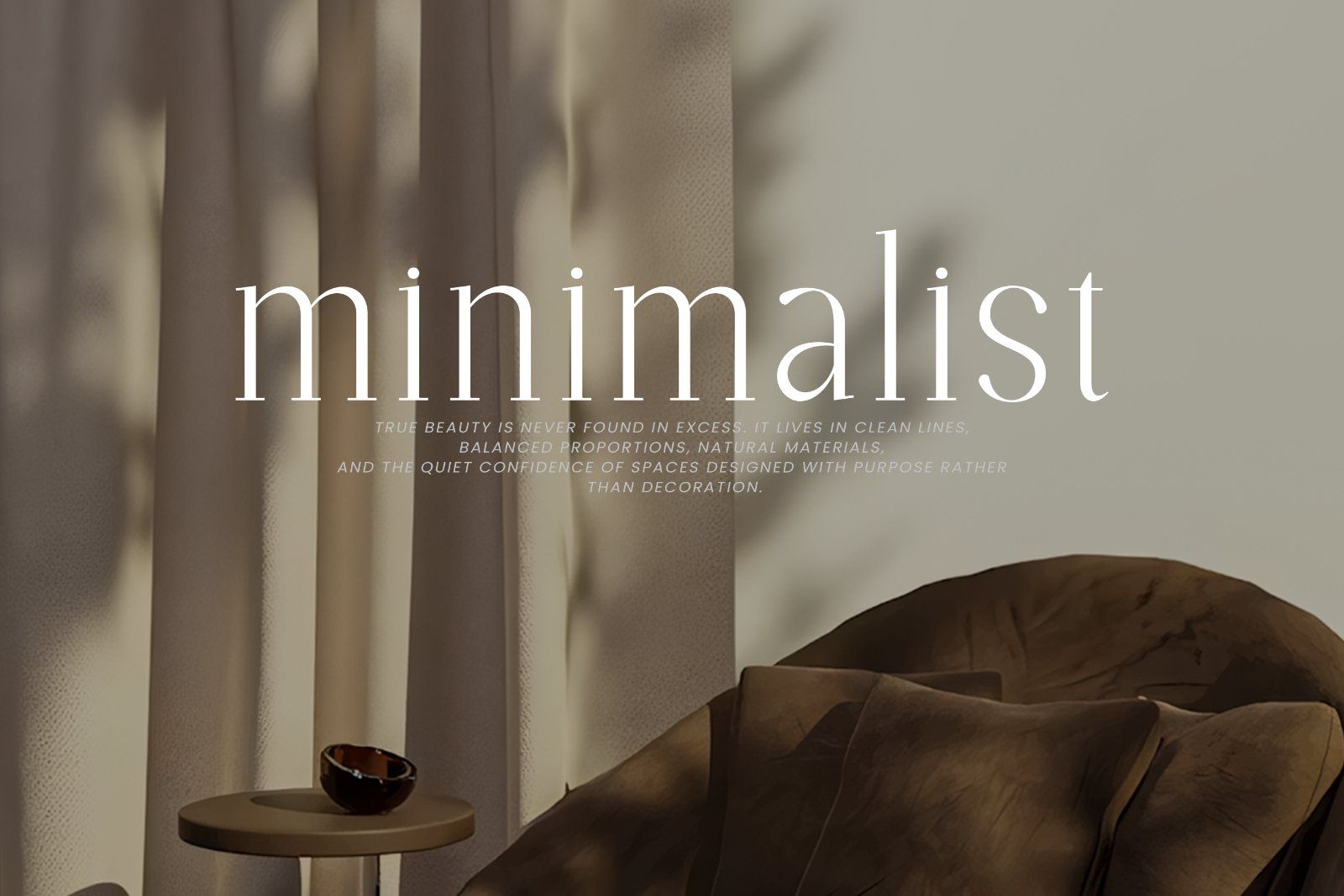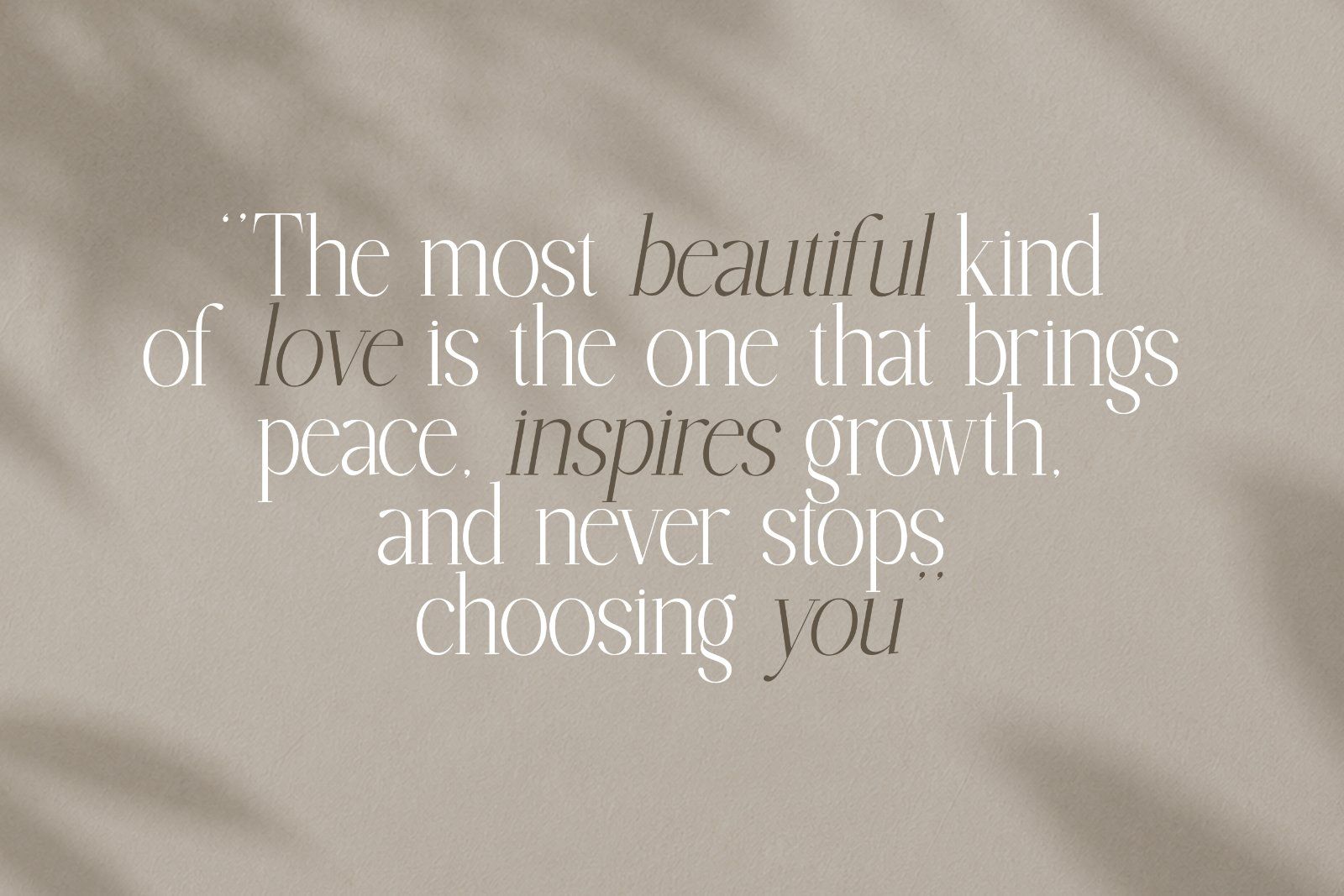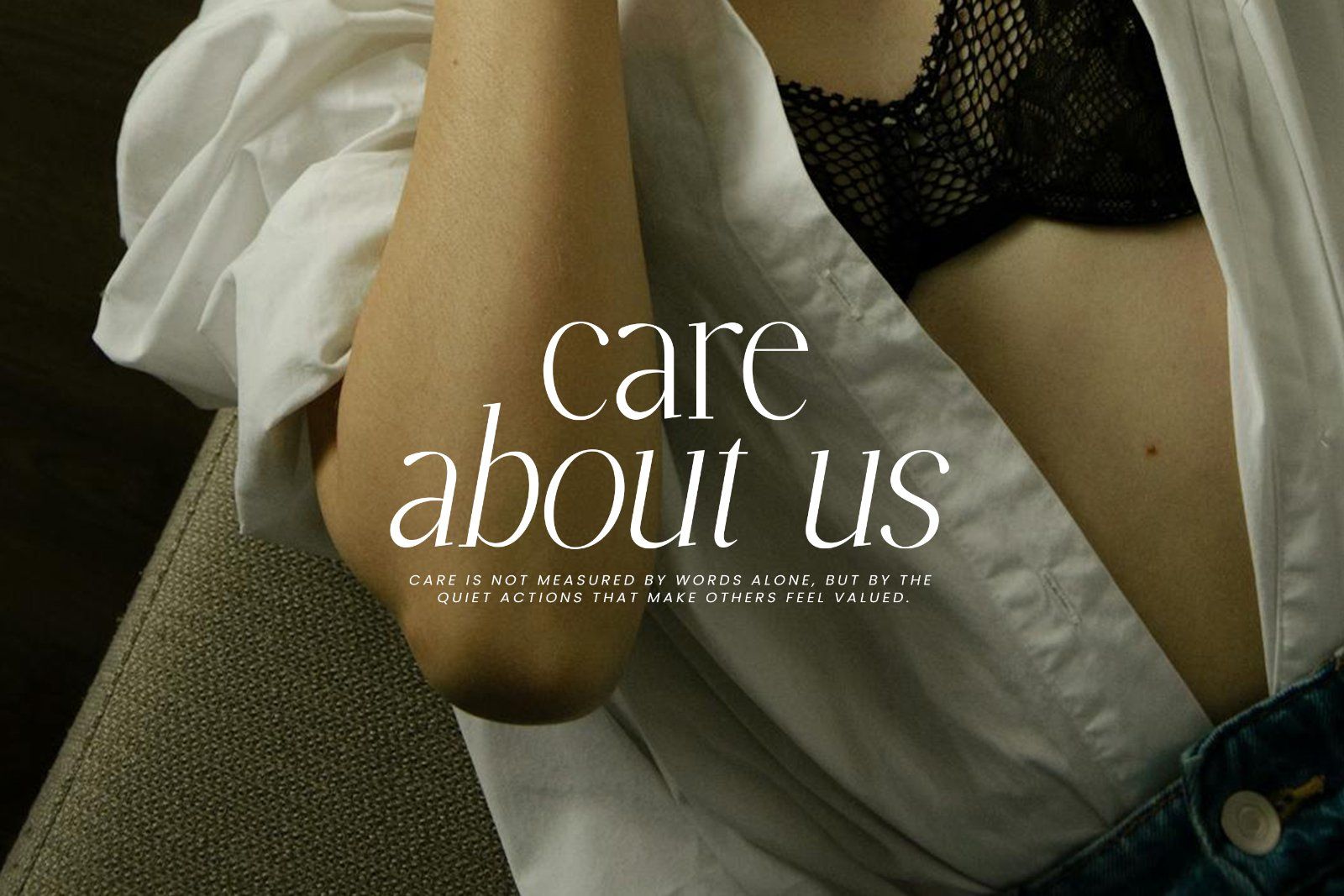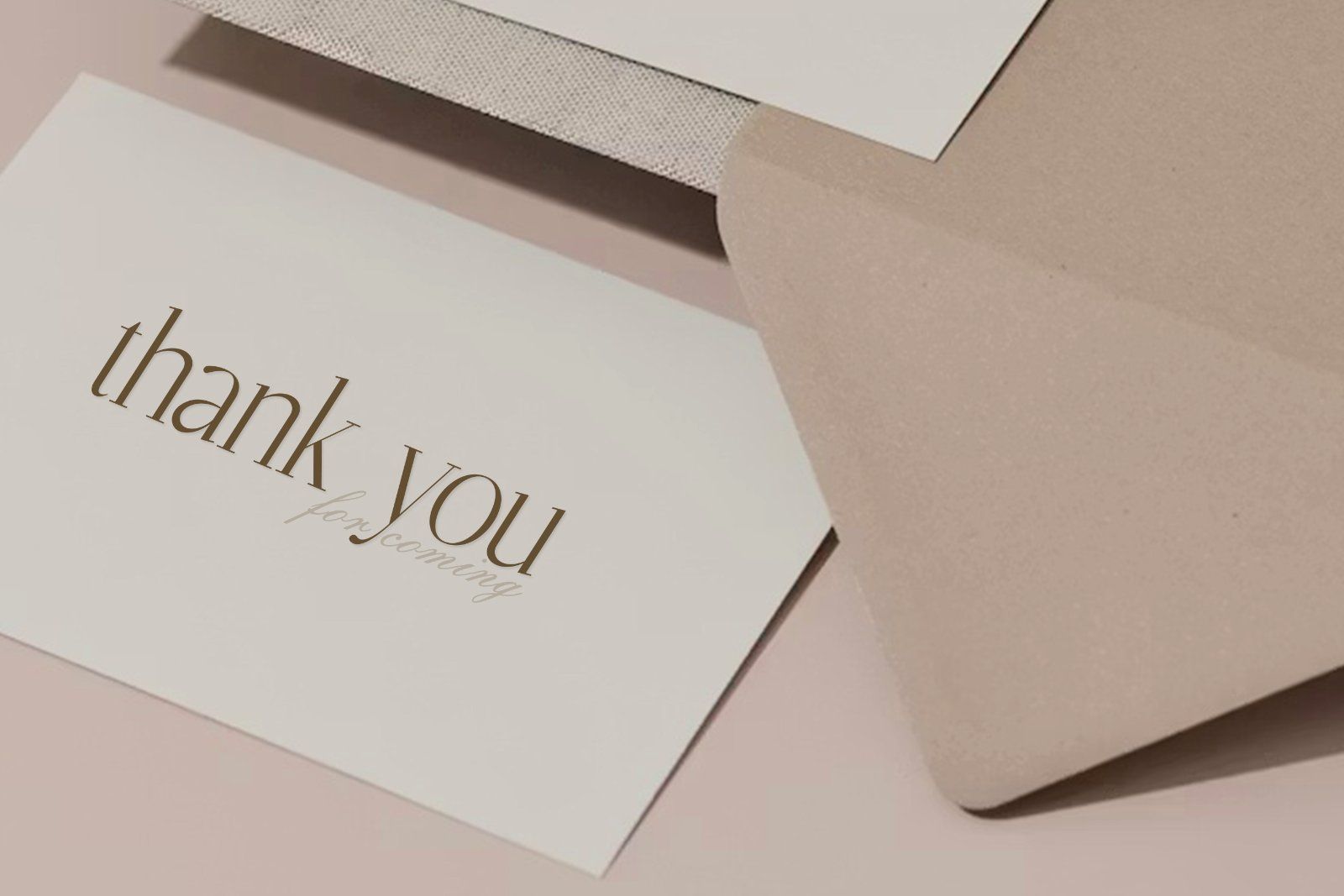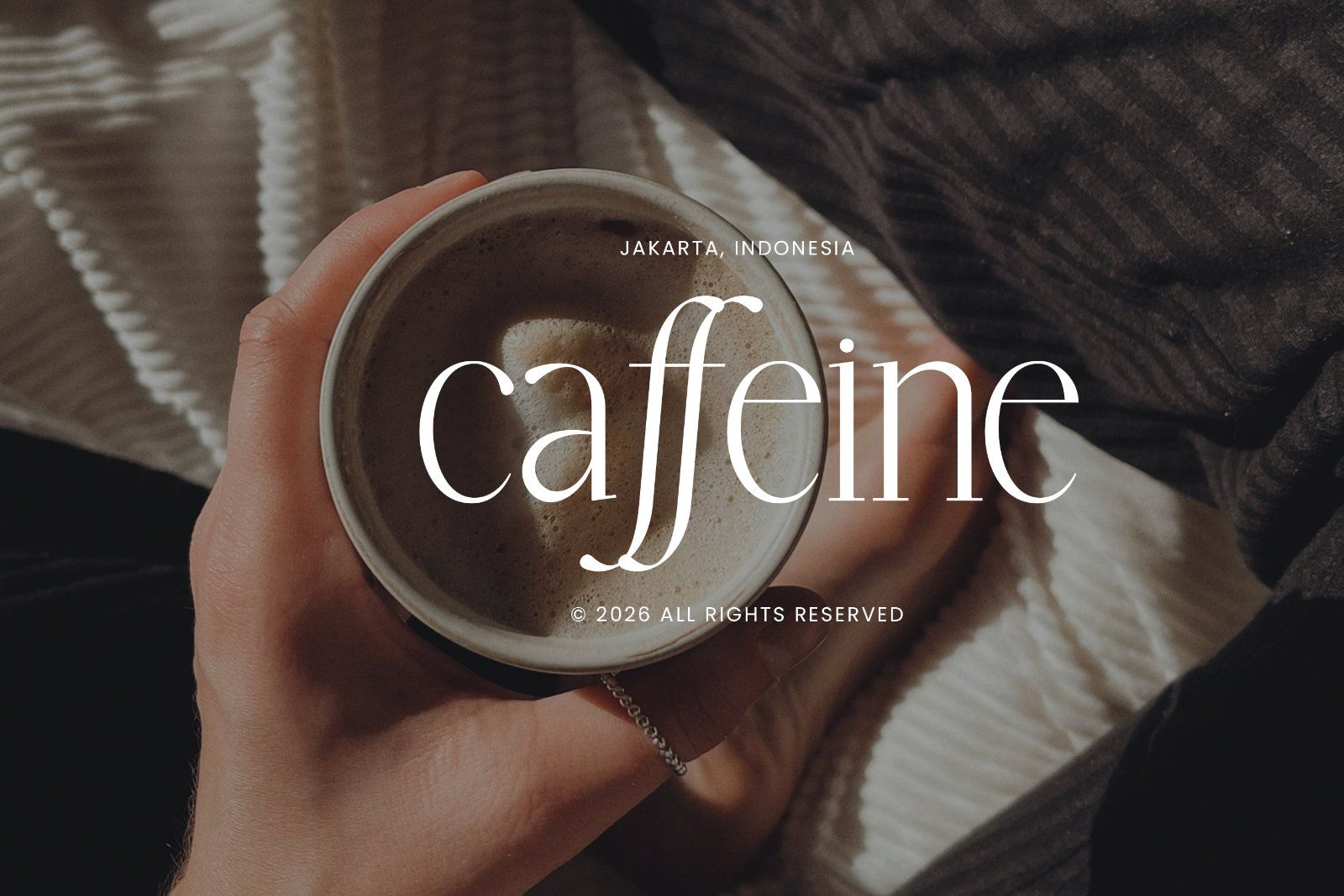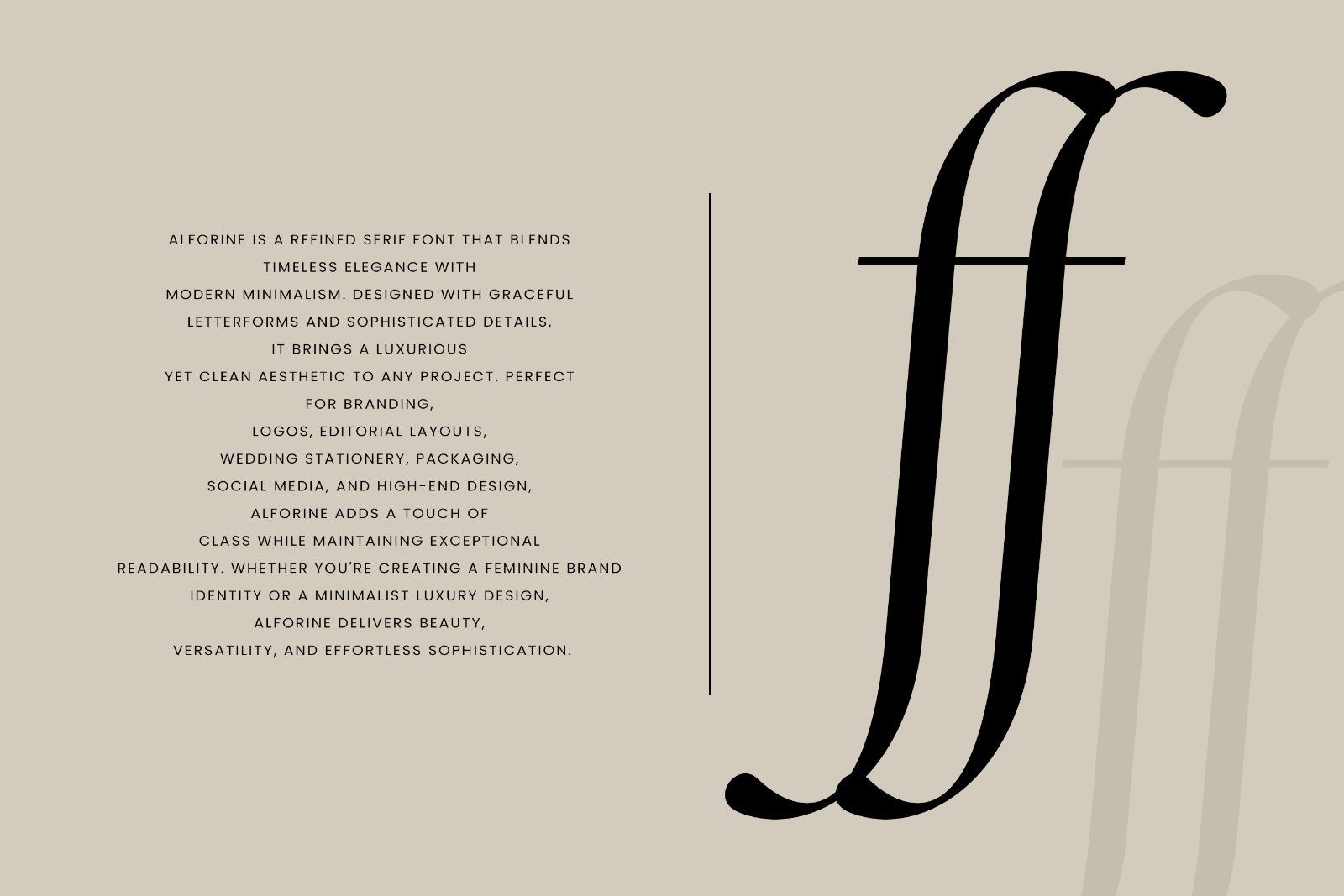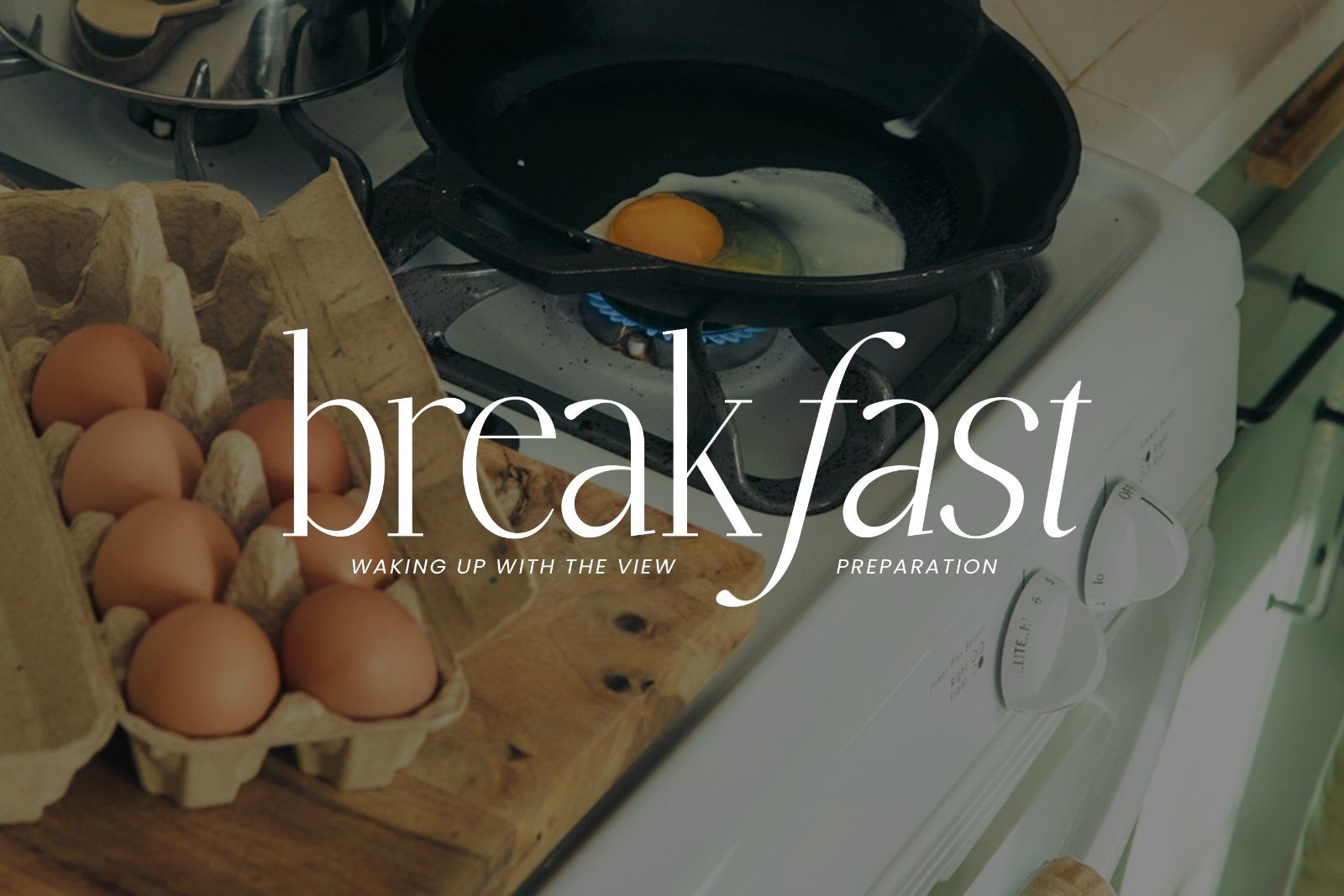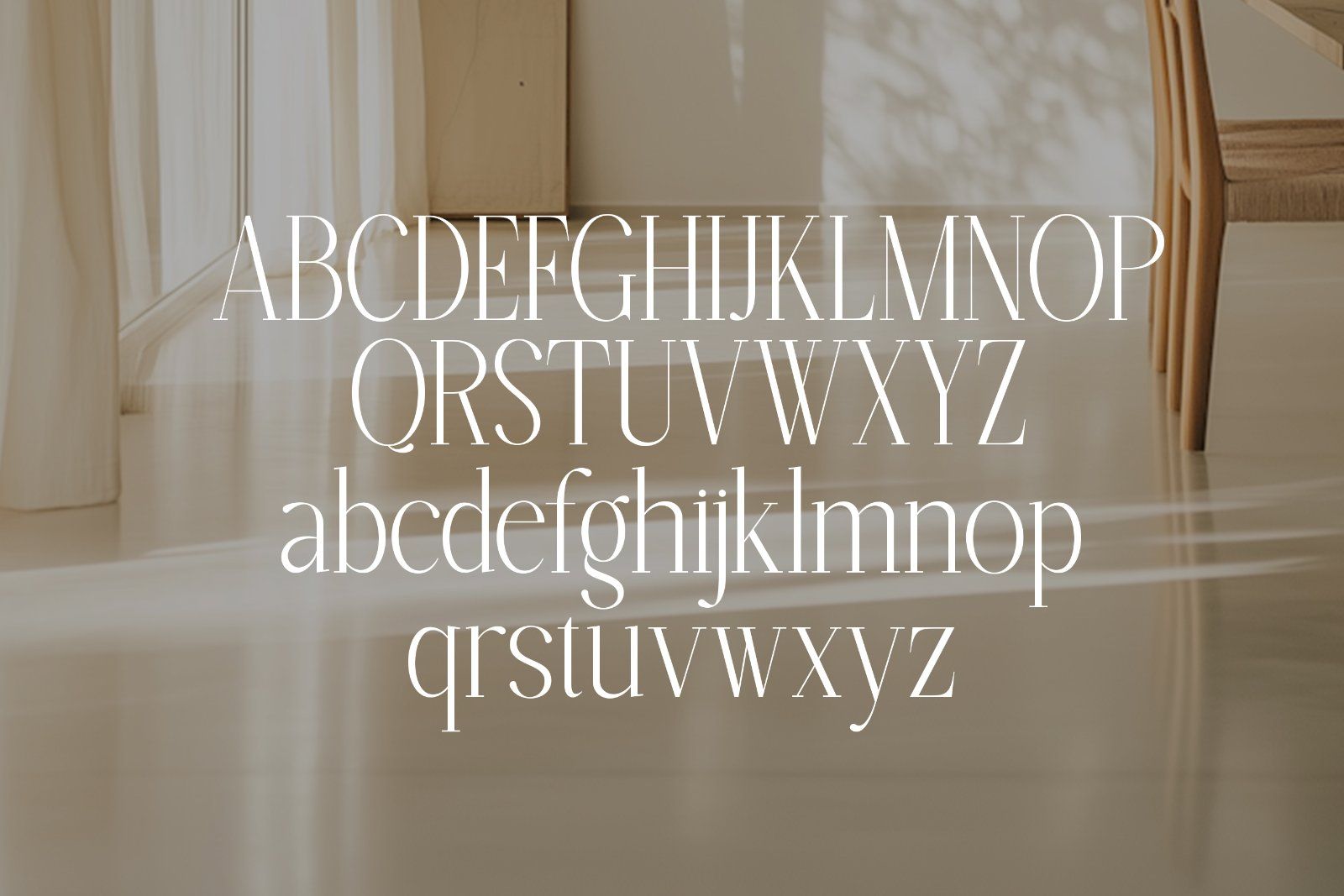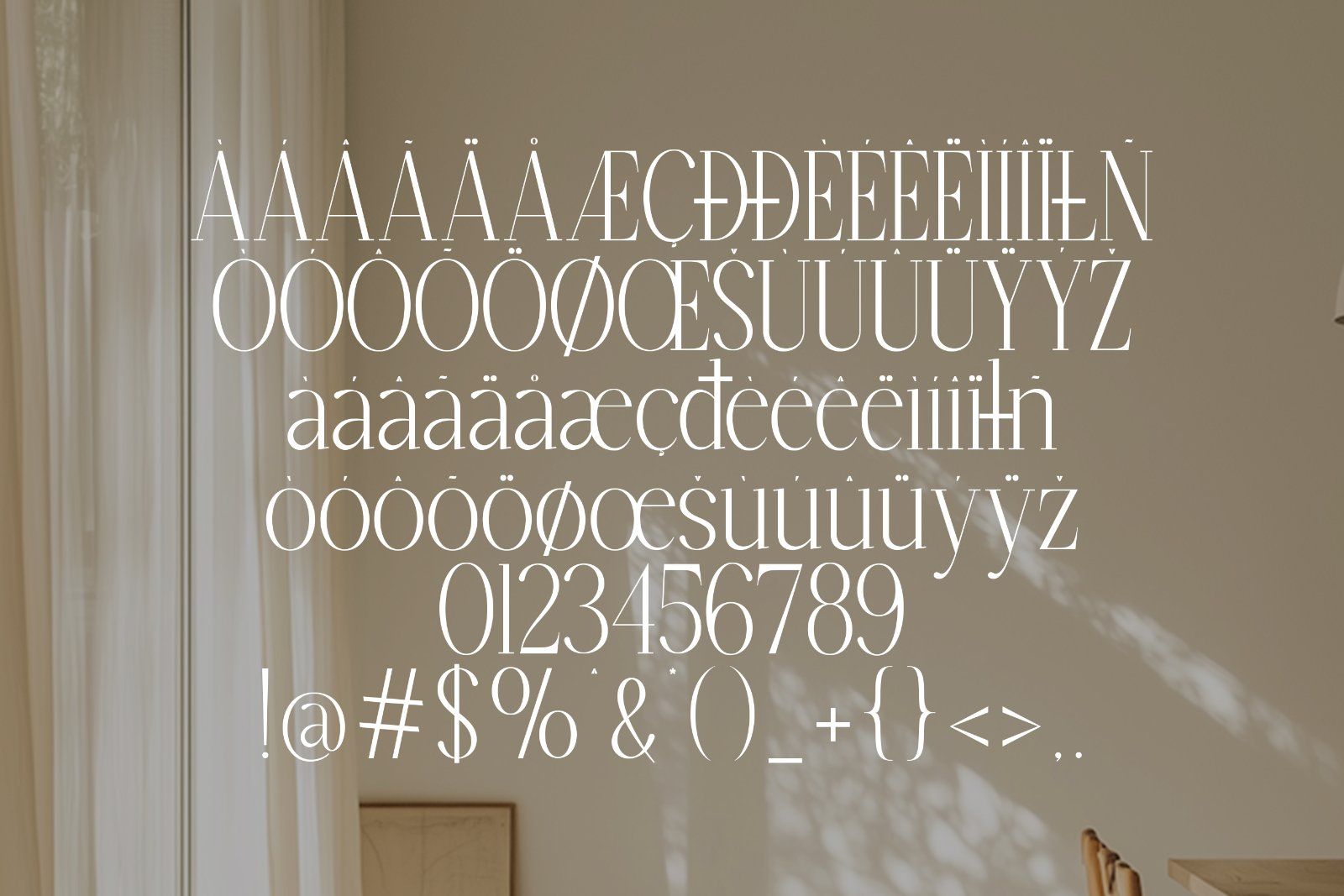
Introducing Alforine, a refined minimalist serif font designed to bring timeless elegance to your creative projects. Featuring graceful high-contrast letterforms, delicate curves, and sophisticated proportions, Alforine is perfect for premium branding and modern editorial design.
Whether you're creating a luxury logo, wedding invitation, fashion magazine, cosmetic packaging, or social media branding, Alforine delivers a clean yet distinctive aesthetic that stands out effortlessly.
Perfect For :
• Luxury Branding
• Fashion Logos
• Wedding Invitations
• Beauty & Cosmetic Packaging
• Editorial Layouts
• Magazine Headlines
• Boutique Branding
• Jewelry Branding
• Photography Watermarks
• Social Media Templates
Alforine combines modern minimalism with classic luxury, making it versatile for both personal and commercial projects. Its elegant thin strokes and sophisticated style help create memorable visual identities for premium brands.